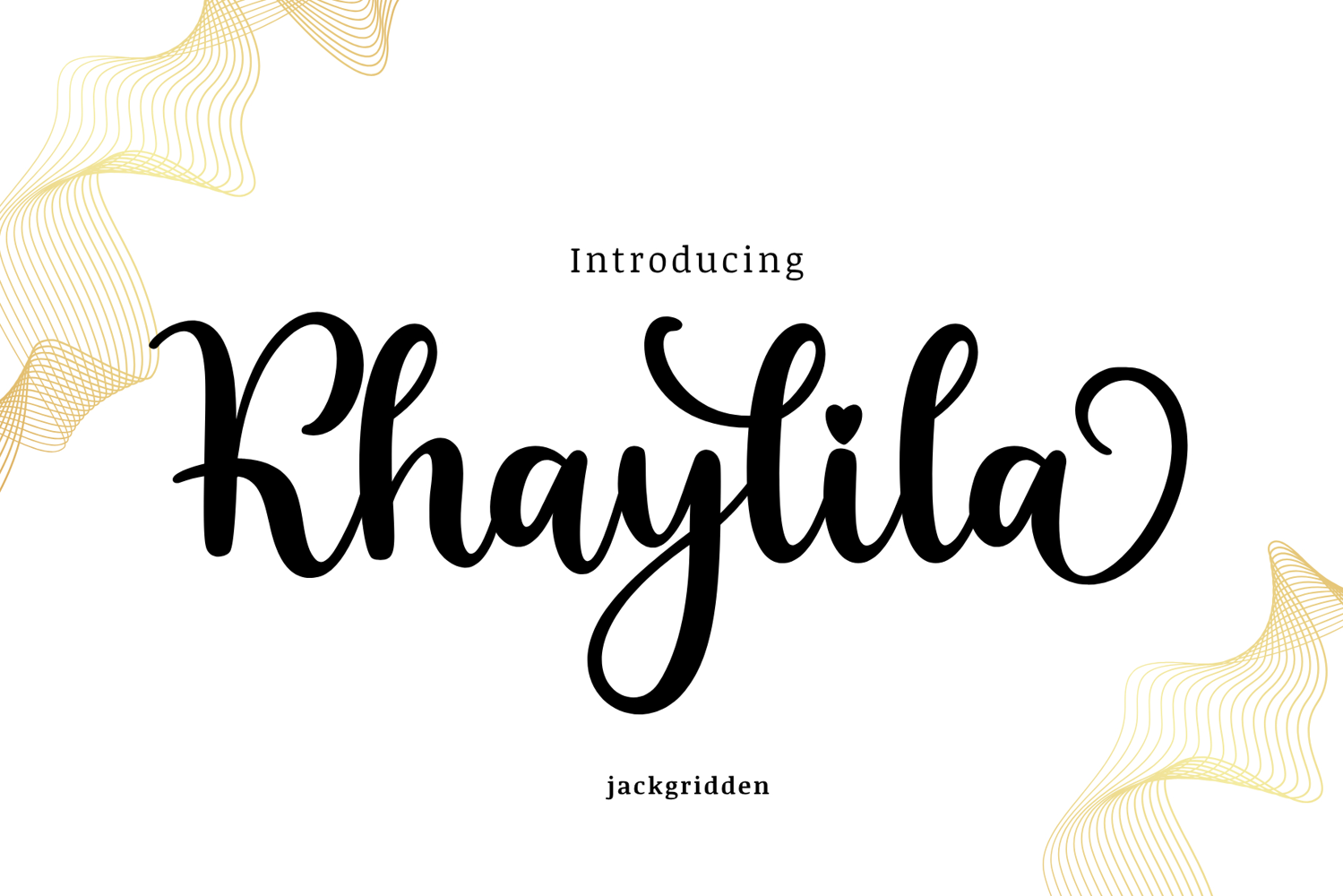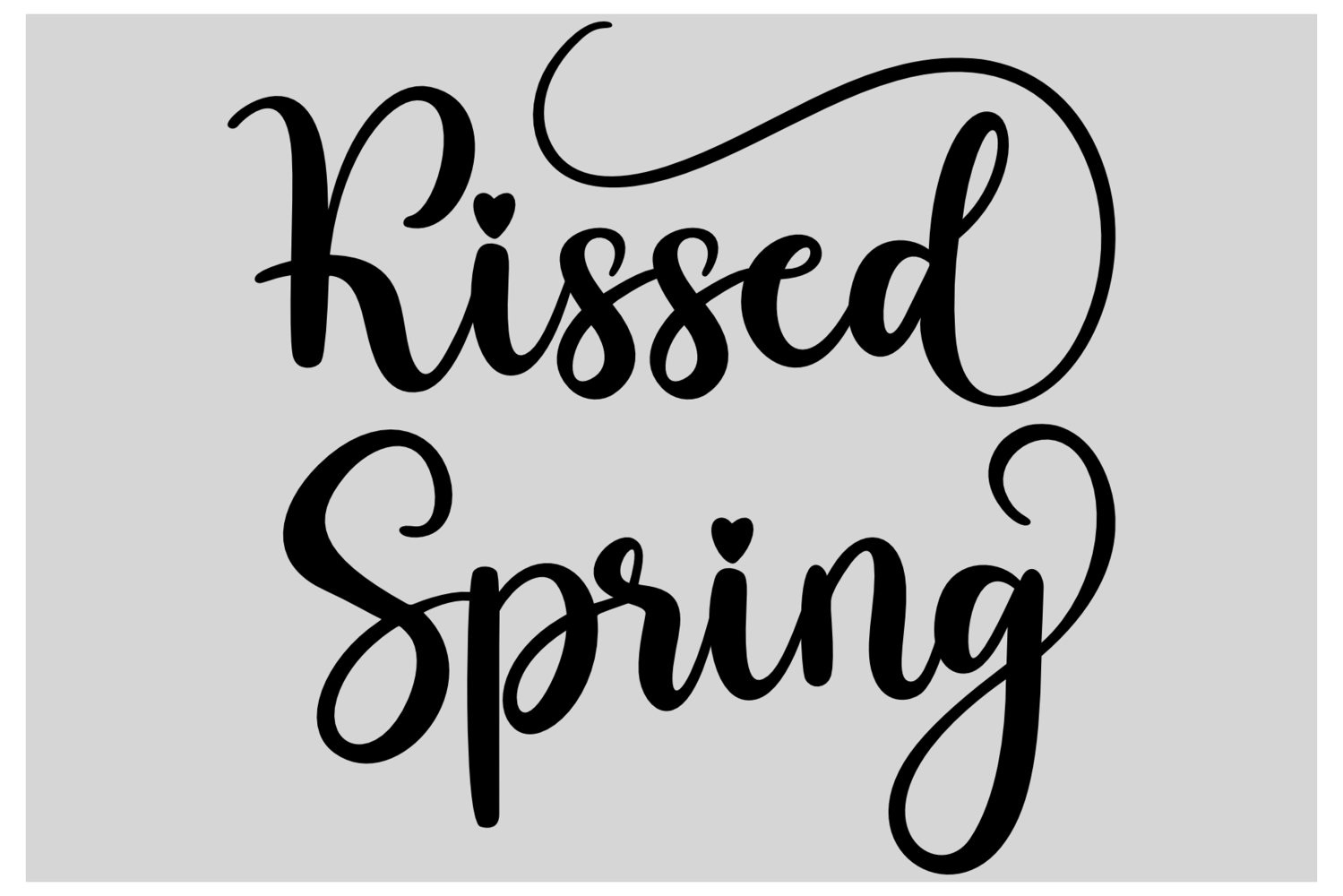
Khaylila Font
KhaylilaFont
Khaylila Script is a beautiful handwritten font that captures the essence of love, elegance, and modern femininity. With its smooth curves, flowing strokes, and charming details, Khaylila brings a soft romantic touch to every design.
Designed with a natural handwritten feel, this font is perfect for creating heartfelt and stylish visuals. Whether you're working on wedding invitations, branding, social media posts, or product packaging, Khaylila adds a graceful and special touch.
The delicate balance between playful swashes and clean readability makes Khaylila both eye-catching and versatile.